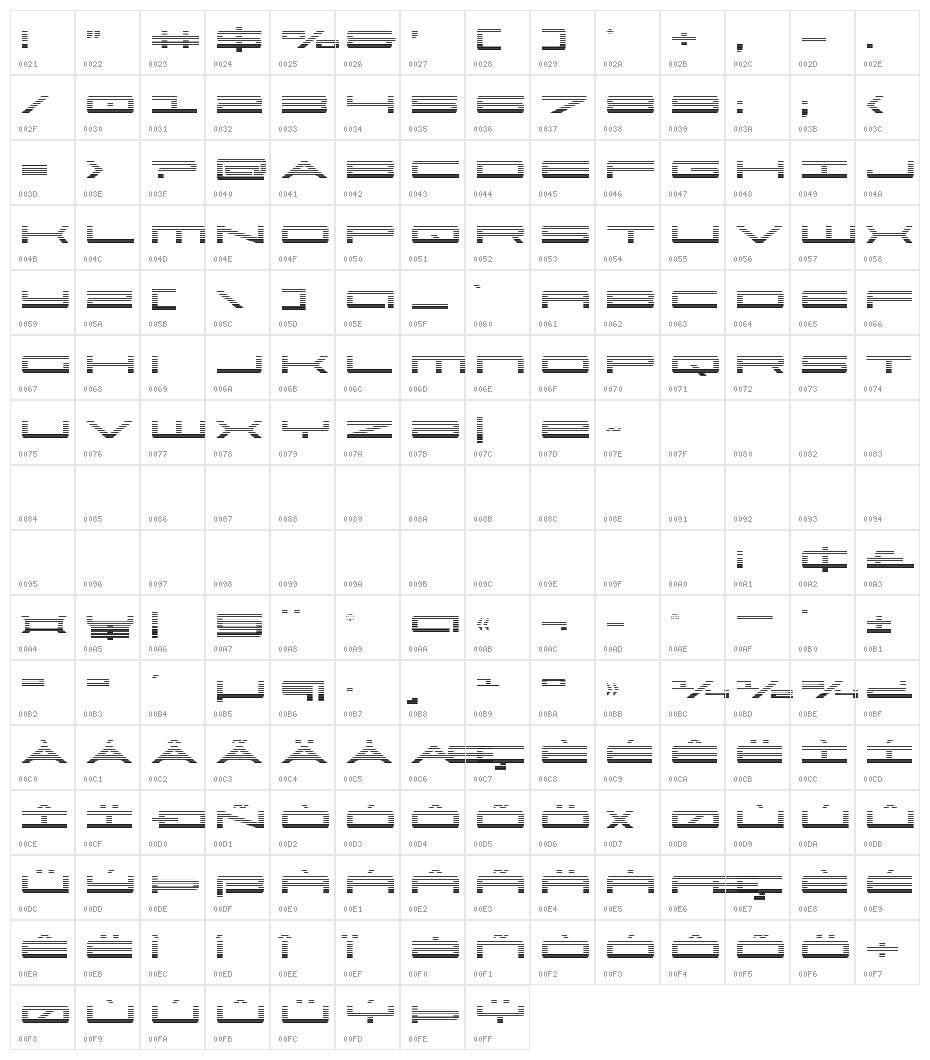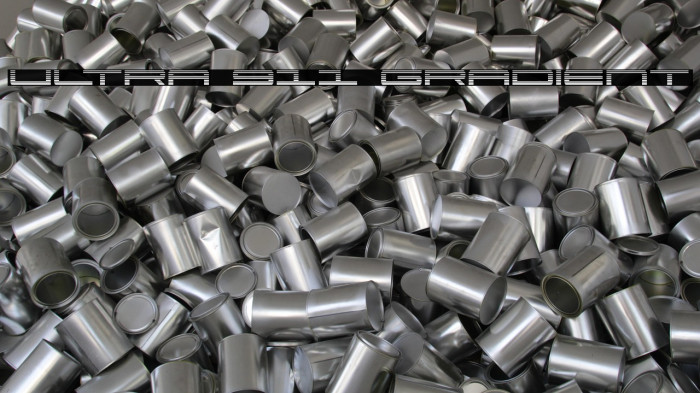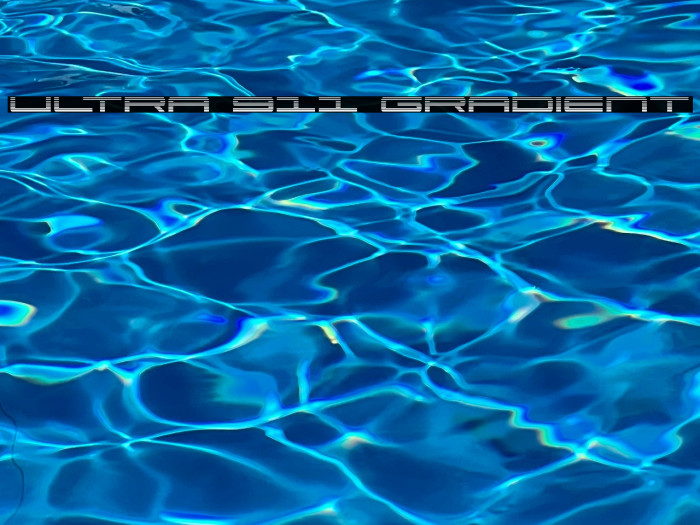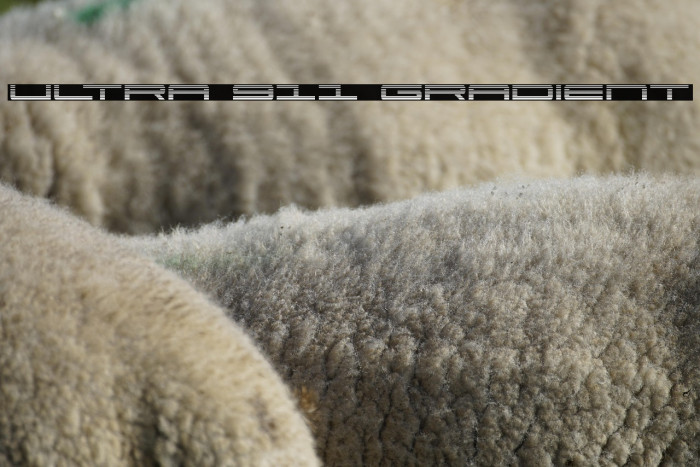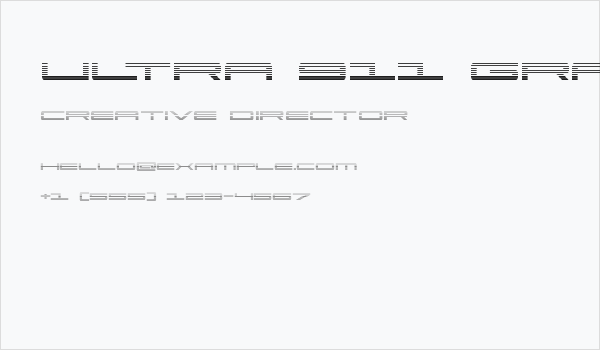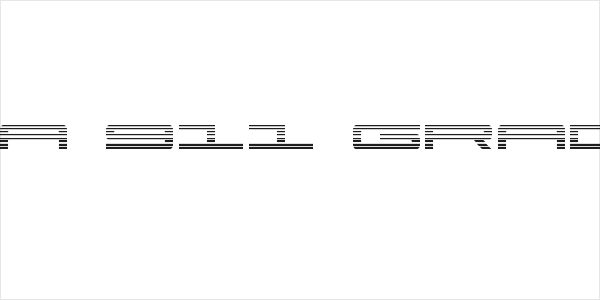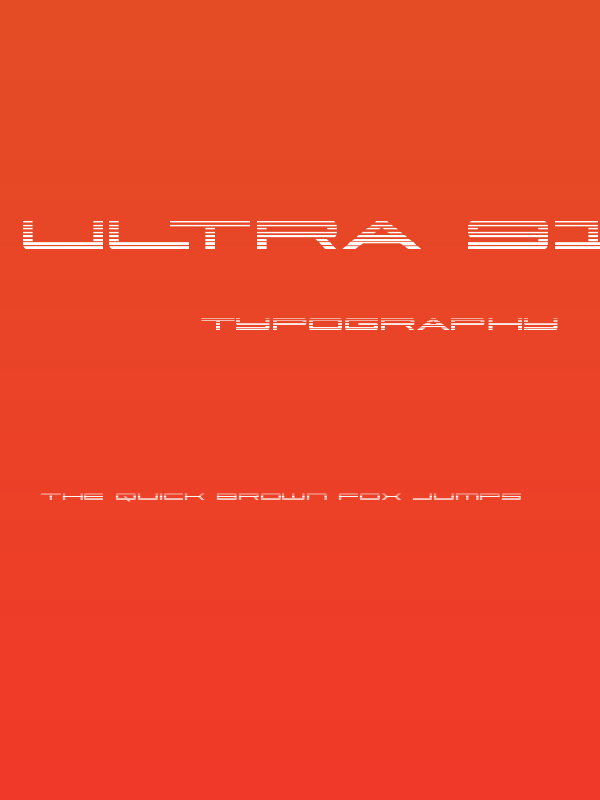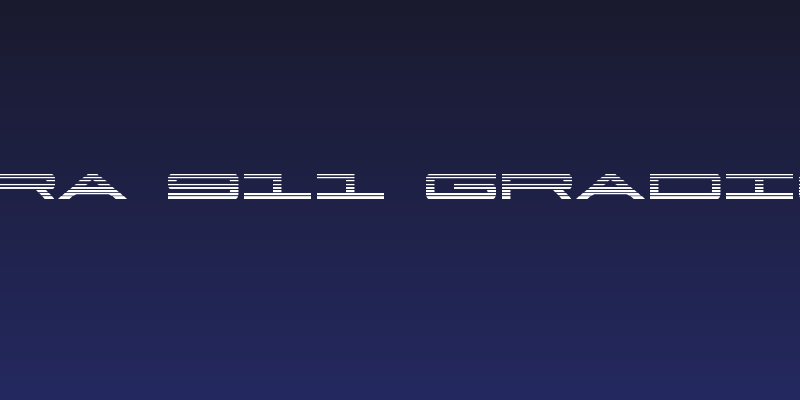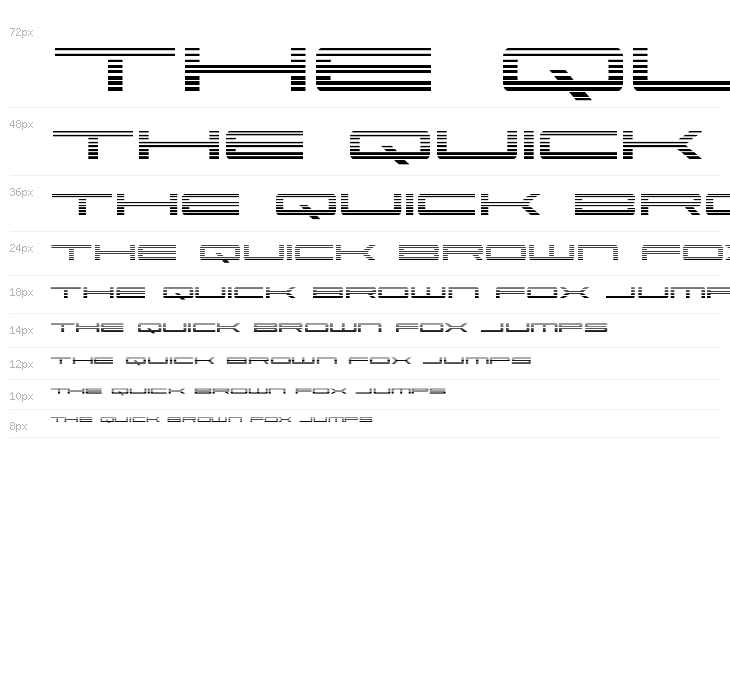
Ultra 911 Gradient Font
Ultra 911 Gradient Description
This font features a futuristic and digital aesthetic, characterized by its segmented and linear design. The characters are composed of horizontal lines that create a sense of movement and modernity. The uppercase and lowercase letters maintain a consistent style, with a geometric and structured appearance. The numbers and special characters follow the same design principles, ensuring uniformity across all glyphs. This font is ideal for projects that require a tech-savvy and contemporary look, making it suitable for digital interfaces, technology branding, and modern advertising.
| Use Case | Logos, Headlines, Digital interfaces |
| Proposed Projects | Ideal for tech branding, digital interfaces, modern advertising, and futuristic designs. |